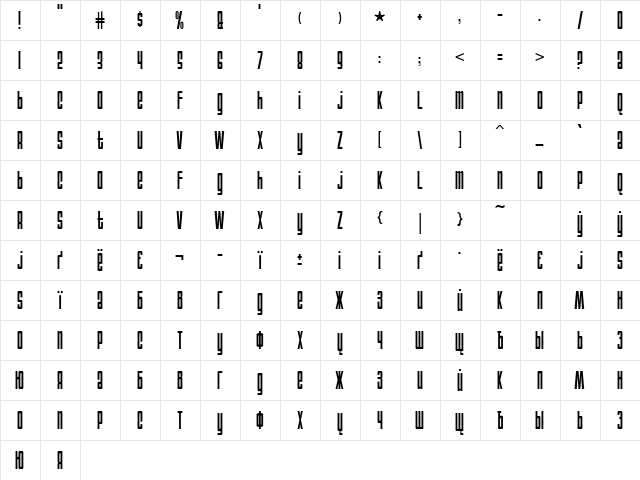
Anarchy Normal
| Designer | Nikolay Dubina |
Design Context for Anarchy Typeface
Anarchy offers clean, dependable letterforms without strong stylistic allegiance, making it a practical choice for designers who need flexibility.